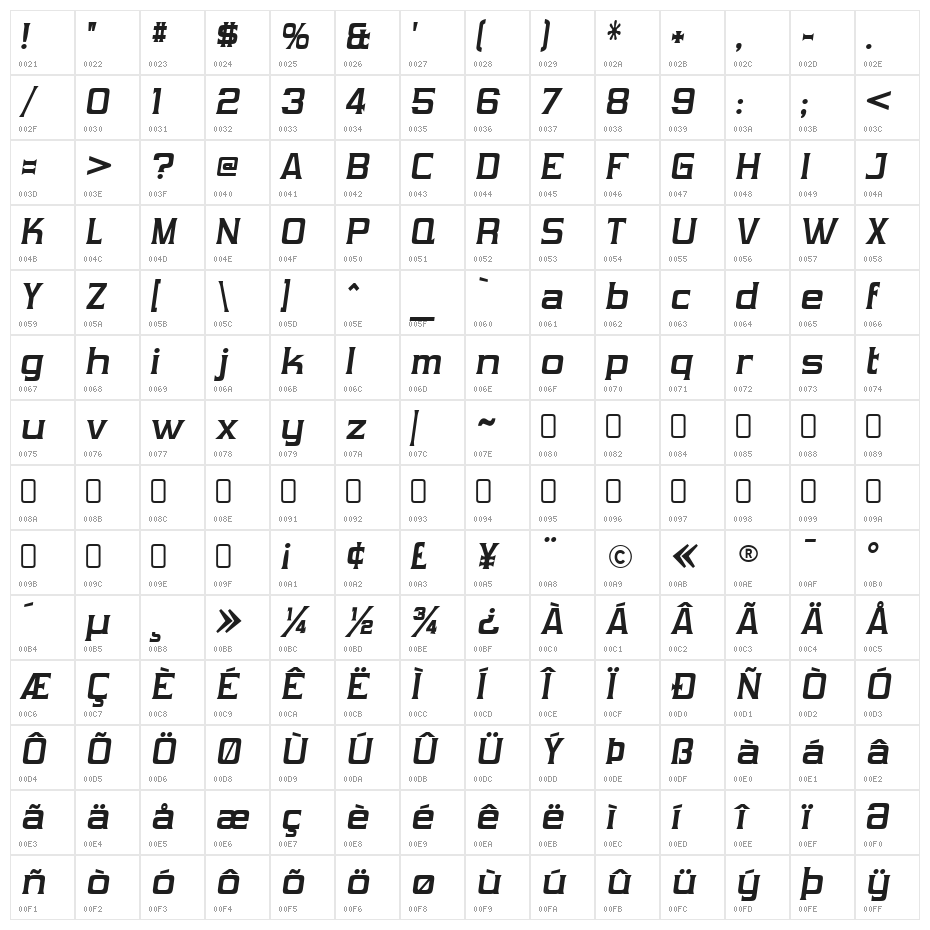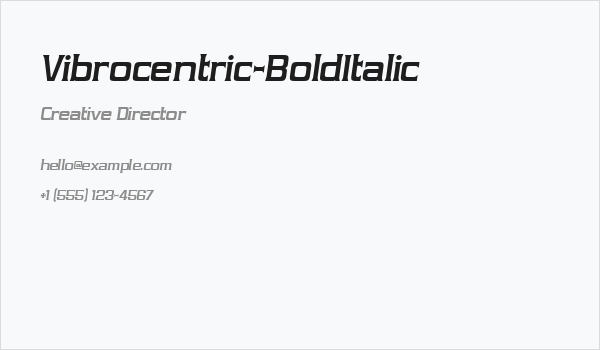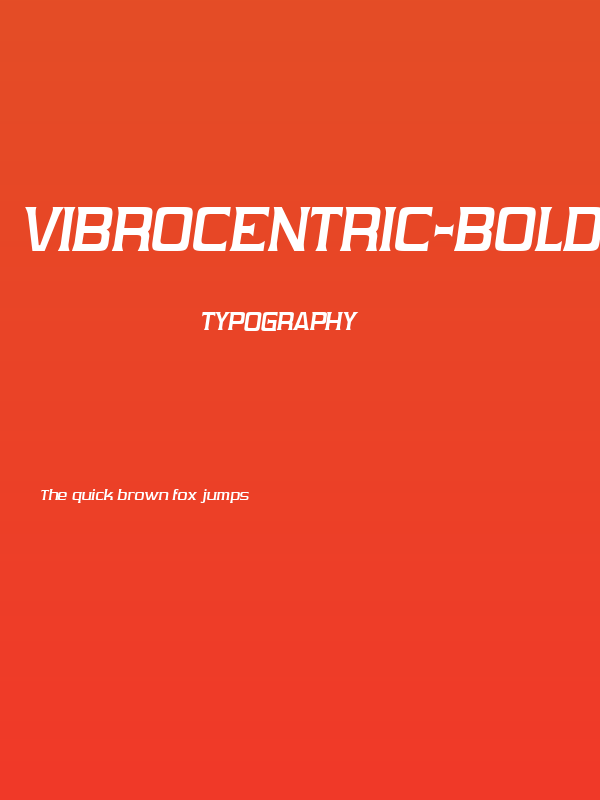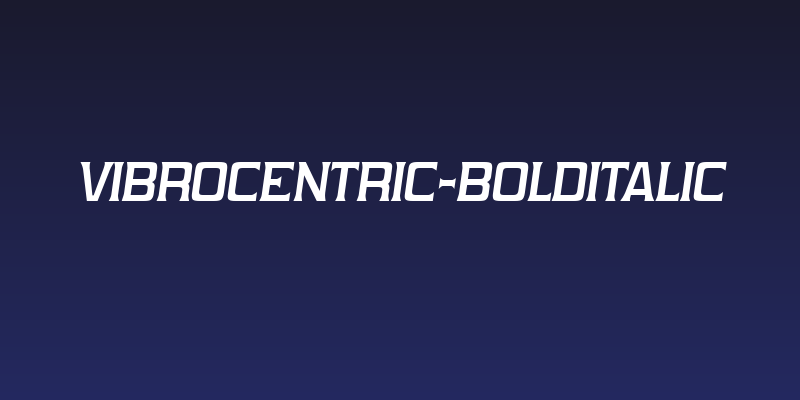
Vibrocentric-BoldItalic Font
Vibrocentric-BoldItalic Description
This font features a bold and italicized style with a modern and dynamic appearance. The characters are slightly slanted, giving a sense of motion and energy. The strokes are thick and consistent, providing a strong visual impact. The uppercase and lowercase letters maintain a uniform width, while the numerals are clear and easily distinguishable. Special characters are designed with the same boldness, ensuring they stand out. The overall design is sleek and contemporary, suitable for projects that require a bold statement.
| Proposed Projects | Ideal for branding, advertising, headlines, and posters where a strong and energetic presence is needed. |